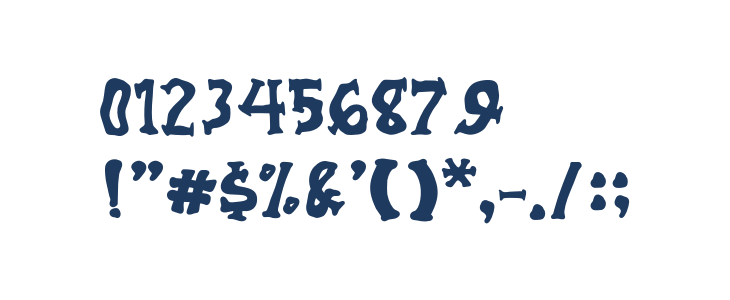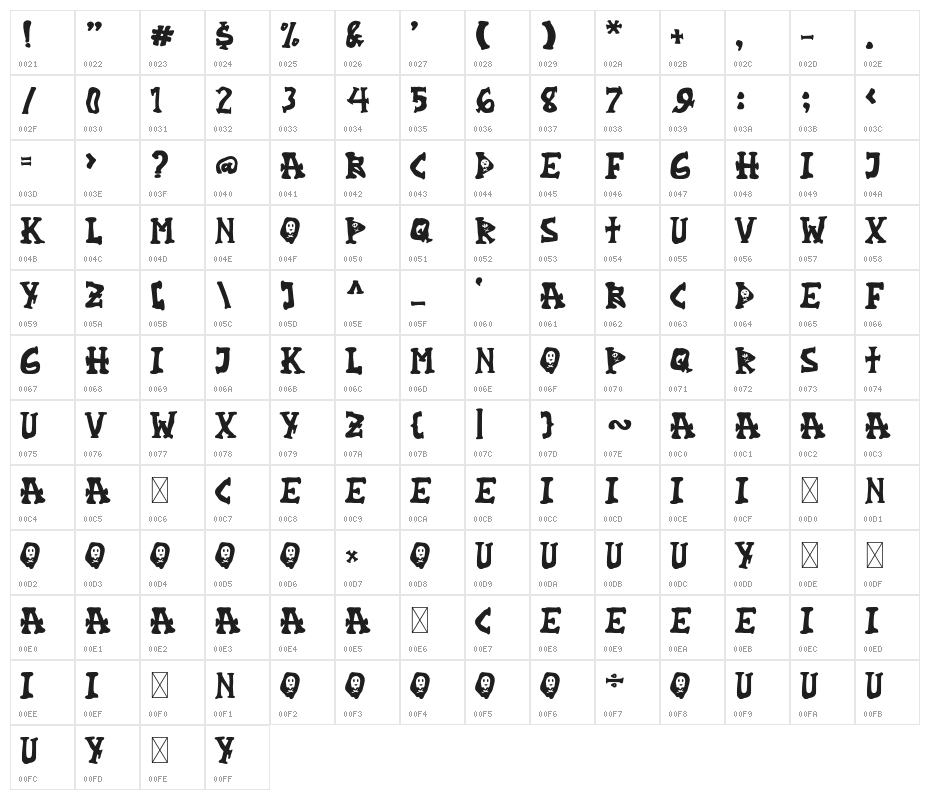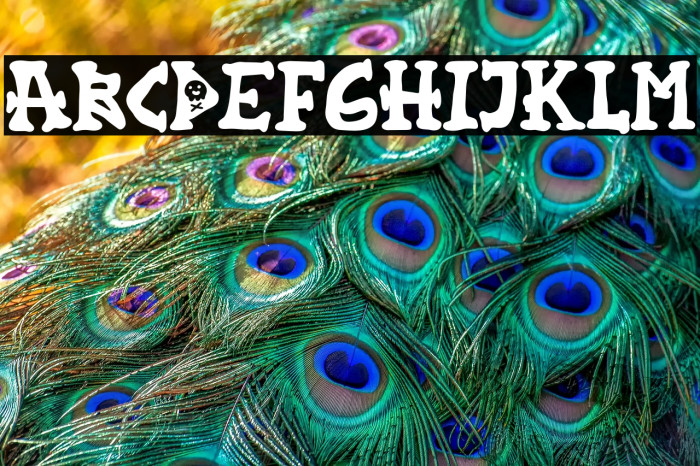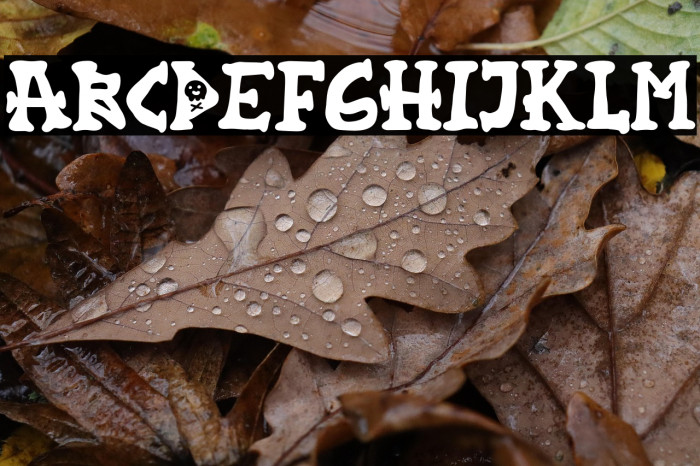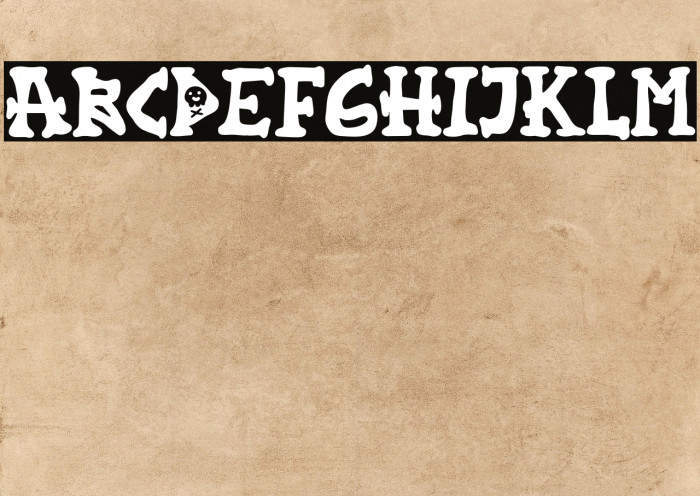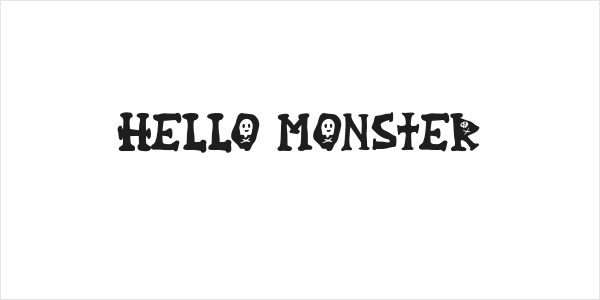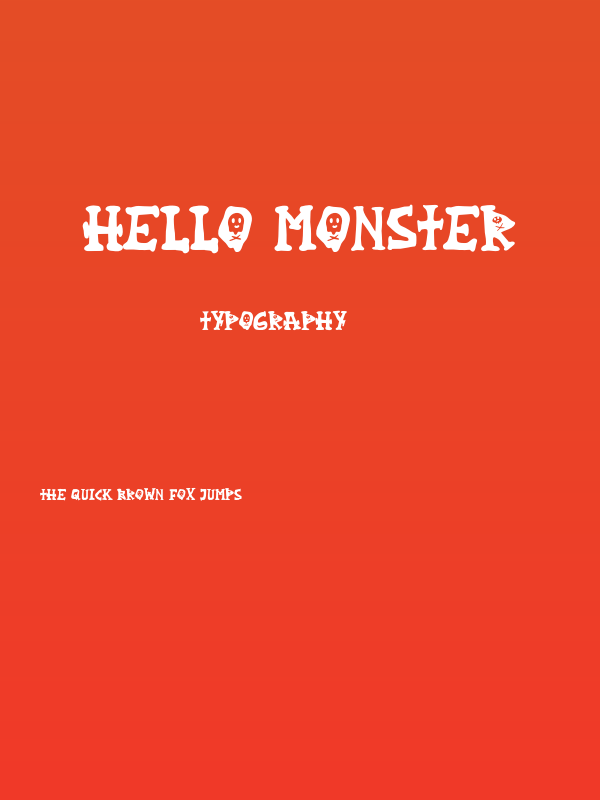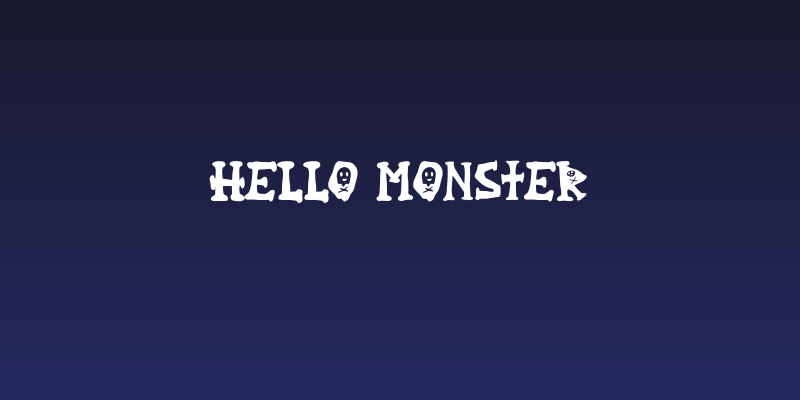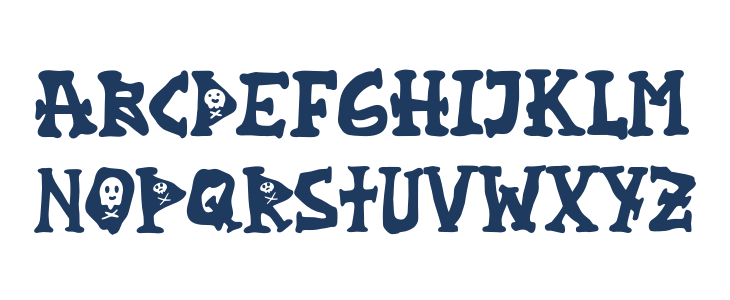
Hello Monster Font
This font features a playful and spooky design, incorporating elements that resemble monster-like characteristics. Each letter is uniquely styled with uneven edges and irregular shapes, giving it a hand-drawn, whimsical appearance. The inclusion of skull motifs within certain letters adds a Halloween-inspired touch, making it ideal for themed events or materials. The numbers and special characters maintain the same quirky style, ensuring consistency across all text elements. The bold and thick strokes contribute to its high visibility, making it suitable for eye-catching headlines or decorative purposes.
| Use Case | Headlines, Logos, Themed Events |
| Proposed Projects | Ideal for Halloween-themed designs, children's party invitations, spooky event posters, or any project requiring a fun and eerie aesthetic. |